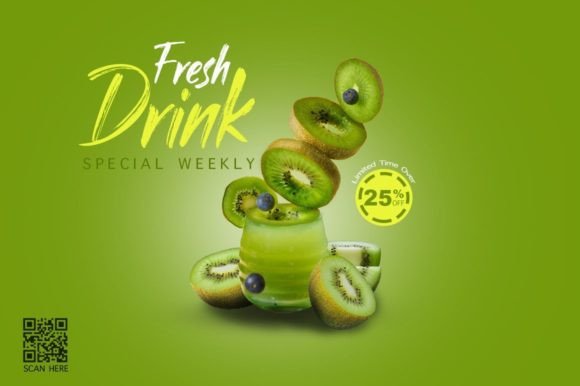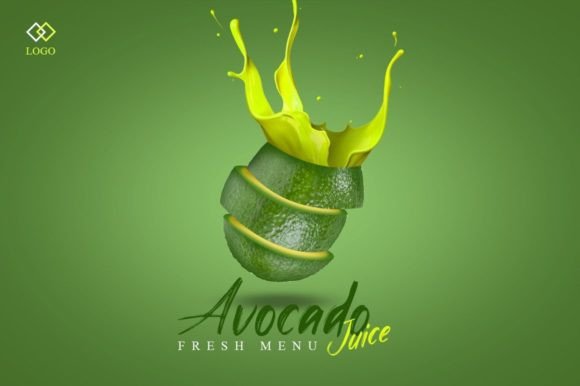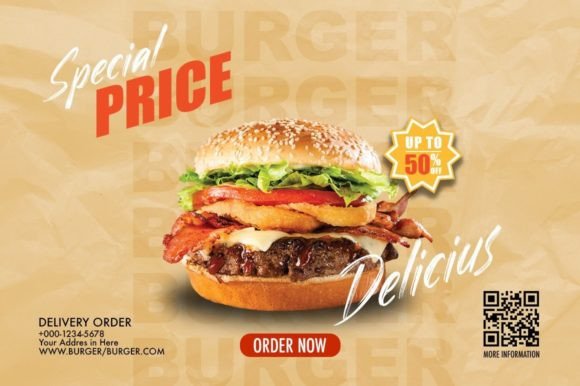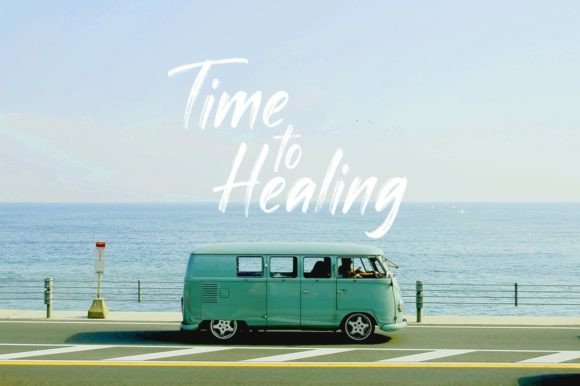
The Perfect Brush for Your Creative Touch
Have you ever found yourself stuck in a design rut, searching for that perfect brush to add a touch of personality to your project? I know I have! It’s those moments when you stumble upon a game-changing font that makes all the difference, and I’m excited to share with you my latest discovery: the Butterfly Font.
This modern and trendy handwritten brush font is a must-have for any designer looking to add a unique touch to their work. With its effortless, hand-written feel, the Butterfly Font is perfect for adding a personal touch to your designs, from social media graphics to wedding invitations. Whether you’re a seasoned pro or just starting out, this font is sure to elevate your projects and leave a lasting impression.
Key Features of Butterfly Font
- Font Style: Butterfly Font is a unique, elegant, and cursive script font.
- Unique Characteristics: Features a distinctive, flowing design with intricate details and subtle flourishes, adding a touch of elegance to any text.
Butterfly Font Review
As a designer, I was excited to dive into the Butterfly Font and see if it lived up to its whimsical name. Here’s my honest review.
- ✨ Unique aesthetic: The Butterfly Font has a distinctive, hand-painted feel that’s perfect for adding a touch of personality to your designs.
- ✨ Wide range of applications: This font is versatile and can be used for everything from branding to editorial content, making it a great addition to any designer’s toolkit.
- ✨ Easy to read: Despite its playful feel, the Butterfly Font is surprisingly easy to read, even at small font sizes.
- ⚠️ Limited language support: The Butterfly Font is only available in a limited range of languages, which may be a problem for designers working on multilingual projects.
- ⚠️ Not ideal for small text: While the font is easy to read, it can be a bit difficult to use in small text sizes, where the delicate lines can get lost.
Overall, I’d give the Butterfly Font 4 out of 5 stars. While it has some limitations, its unique aesthetic and versatility make it a great choice for designers looking to add a touch of personality to their work.
The Butterfly Font is ideal for:
- Birthday party decorations and invitations
- Children’s book illustrations and typography
- Floral-themed designs and graphics
Alternatives to Butterfly Font
Playfair Display is a luxurious, high-end serif font ideal for use in titles and headings. It features intricate details and elegant lines that evoke a sense of sophistication and refinement. When to use: Use Playfair Display for luxury brands, high-end products, or special occasions where you want to convey elegance and sophistication. Compared to Butterfly Font: While Butterfly Font is a whimsical, handwritten font, Playfair Display is more formal and structured.
Great Vibes is a modern, handwritten font that conveys a sense of playfulness and informality. It features flowing lines and organic shapes that create a friendly and approachable atmosphere. When to use: Use Great Vibes for casual brands, blogs, or social media platforms where you want to convey a relaxed and friendly tone. Compared to Butterfly Font: While Butterfly Font has a more whimsical and dreamy quality, Great Vibes is more laid-back and casual.